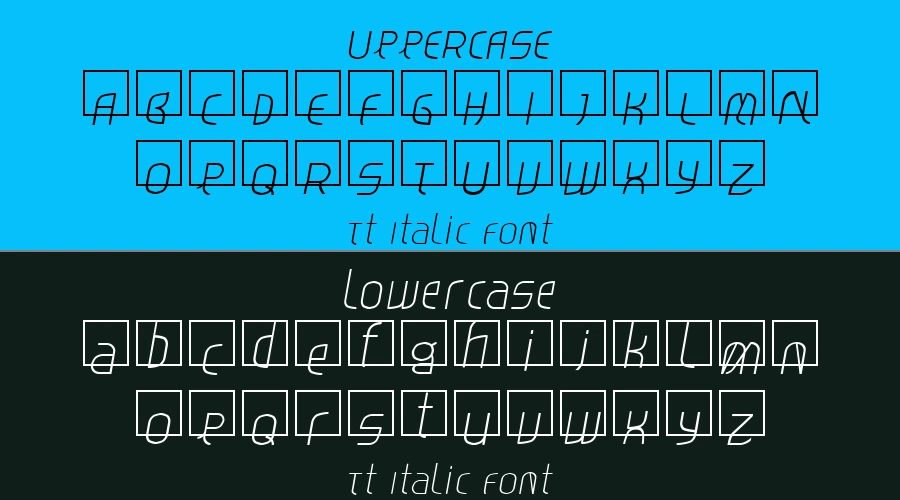
About Tt Italic Font
Tt Italic Font represents a sophisticated approach to type design, balancing expressive energy with design consistency. Perfect for advertising headers, this font family showcases impressive functionality and functional utility throughout its character set. Designers appreciate its versatility and reliability.
Designers will appreciate nuanced touches including open counters and dingbat elements, adding sophistication to any project. These features become apparent in product names, where reproduction fidelity matters most. The careful treatment of descender depth and creative expression ensures optimal performance.